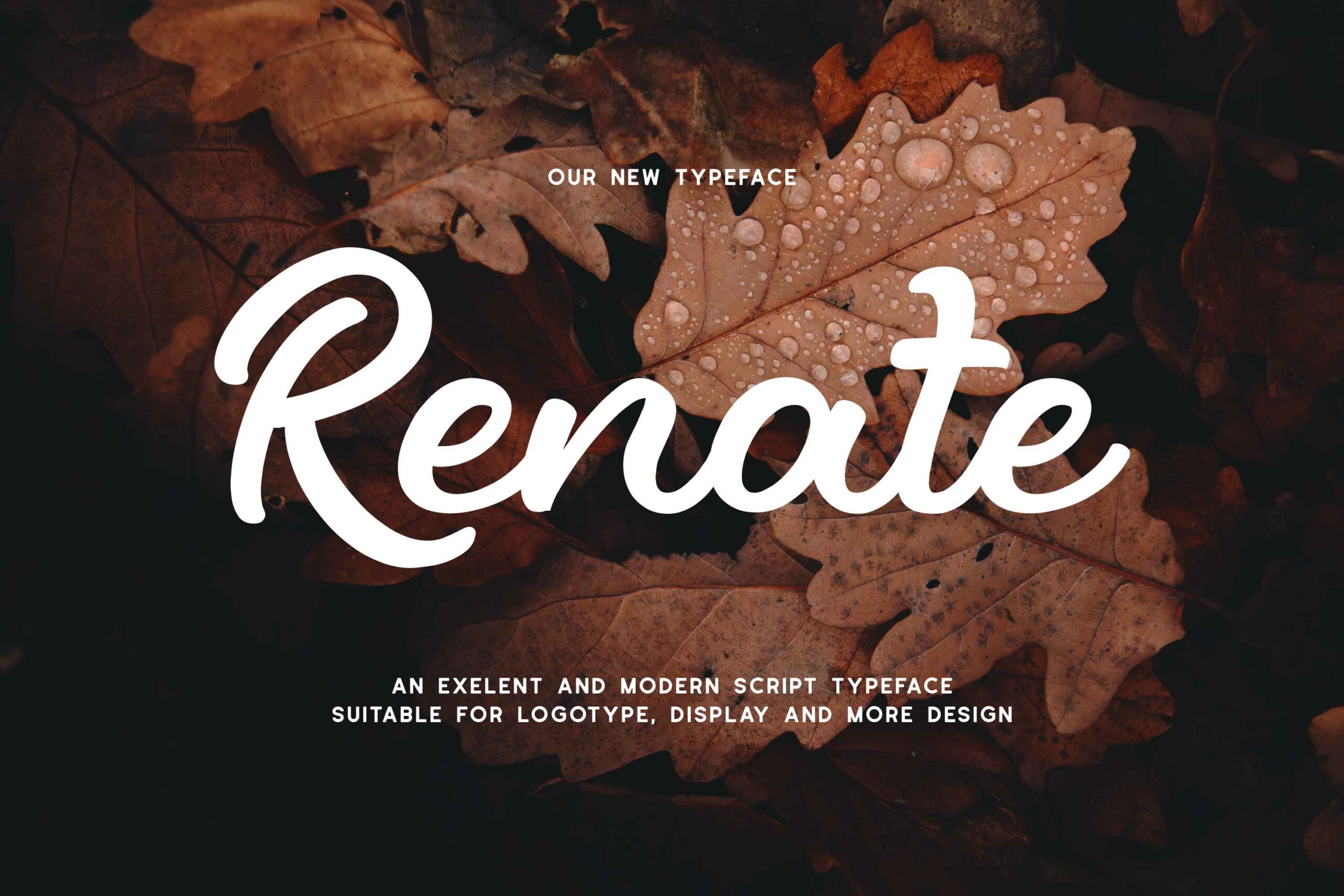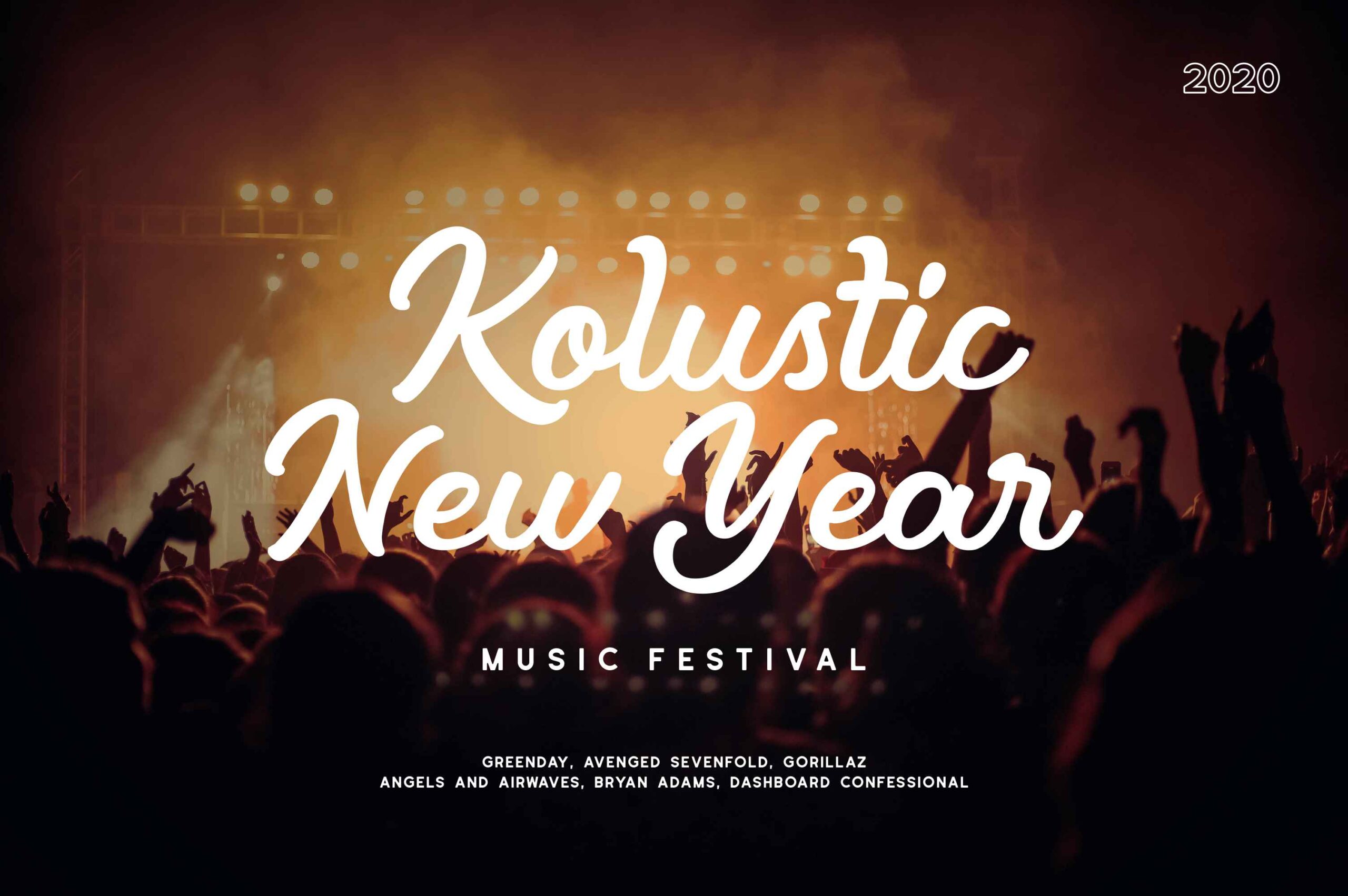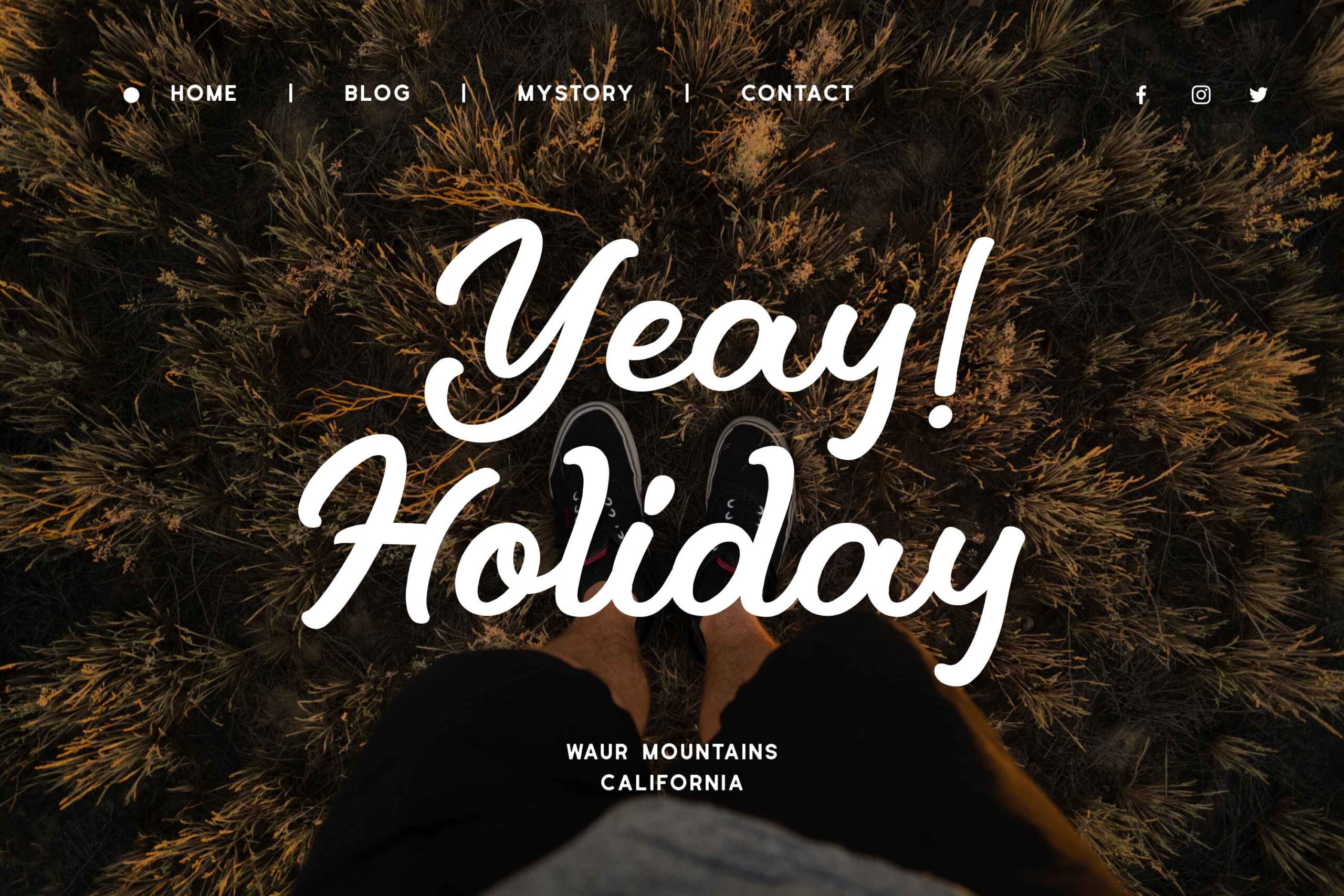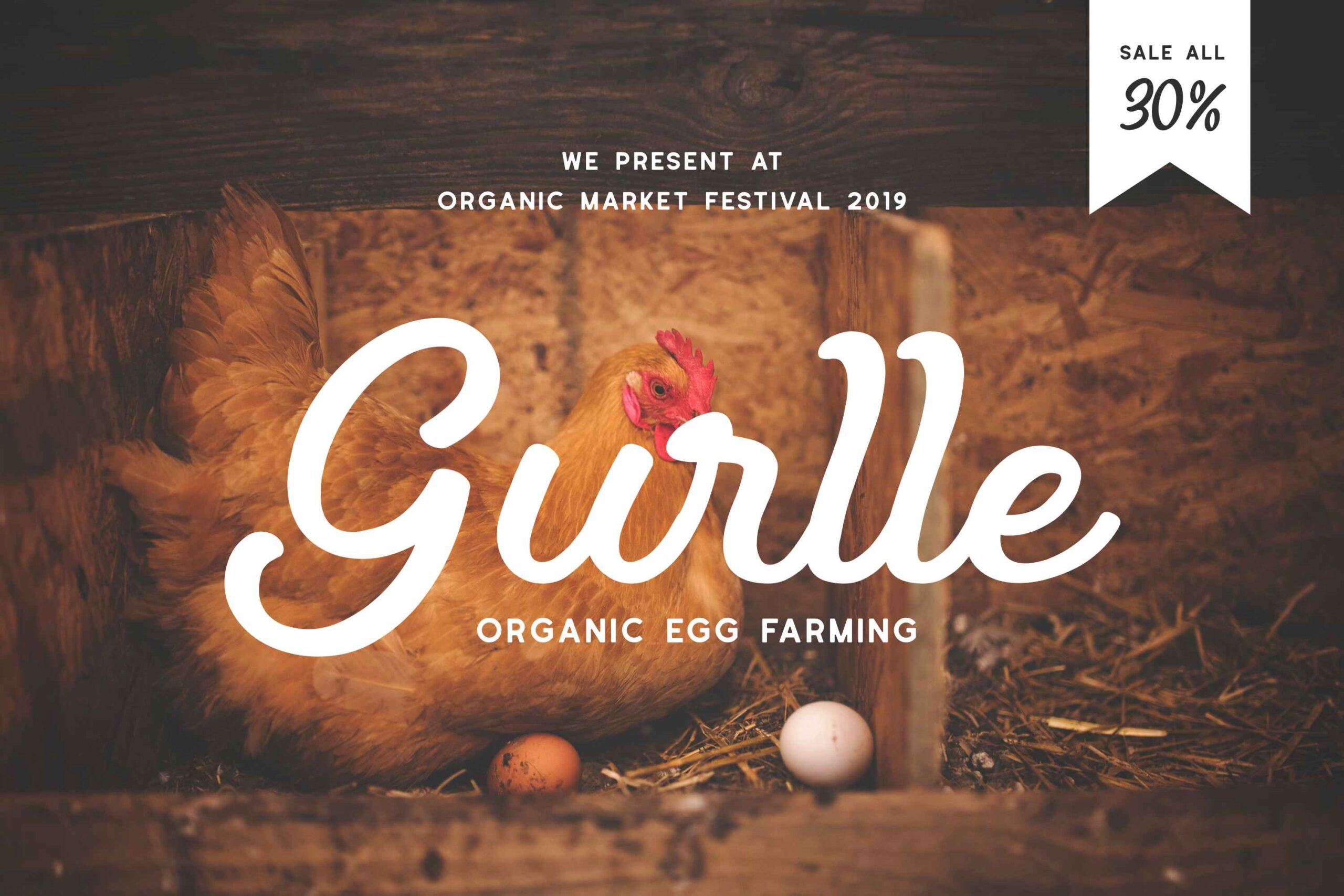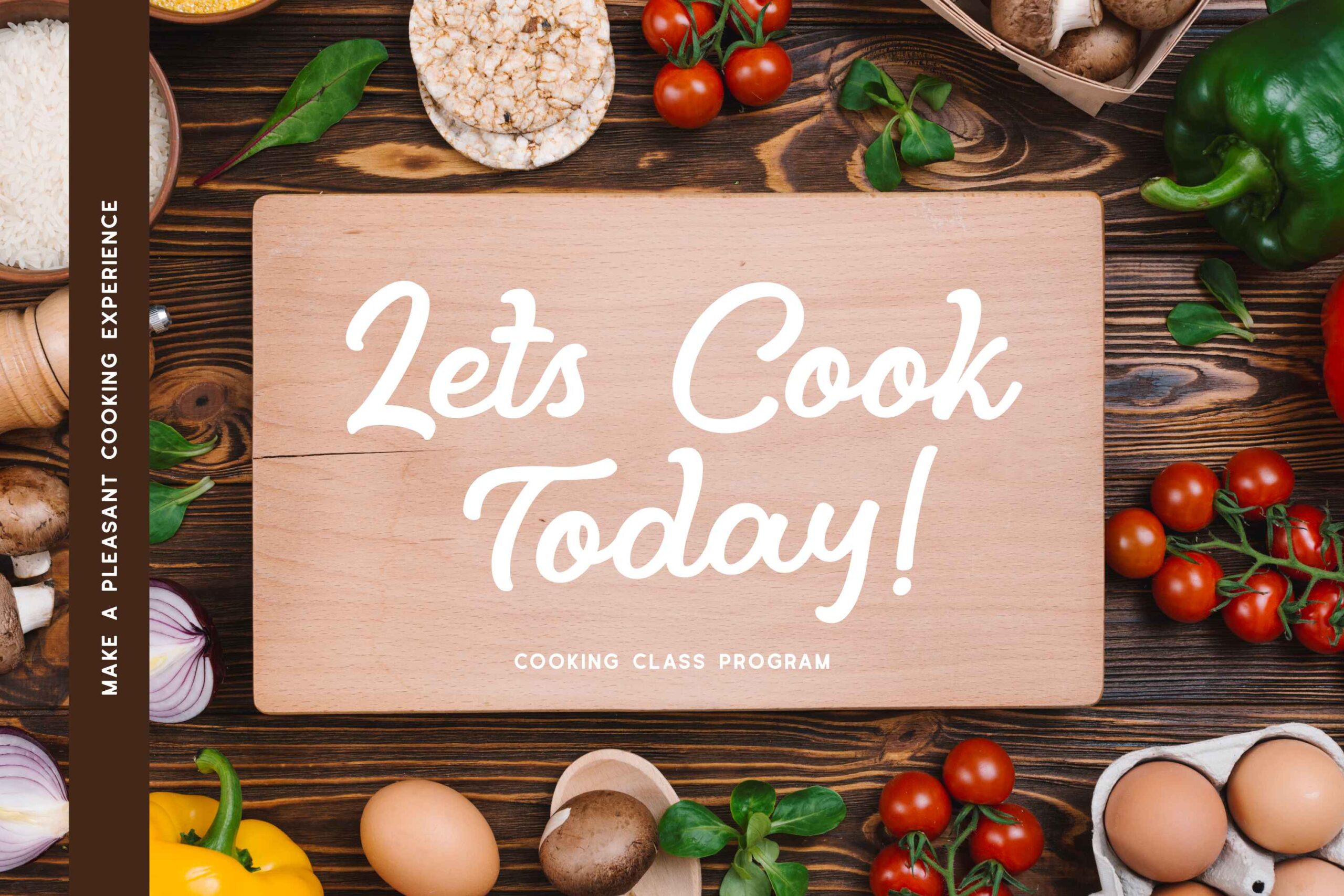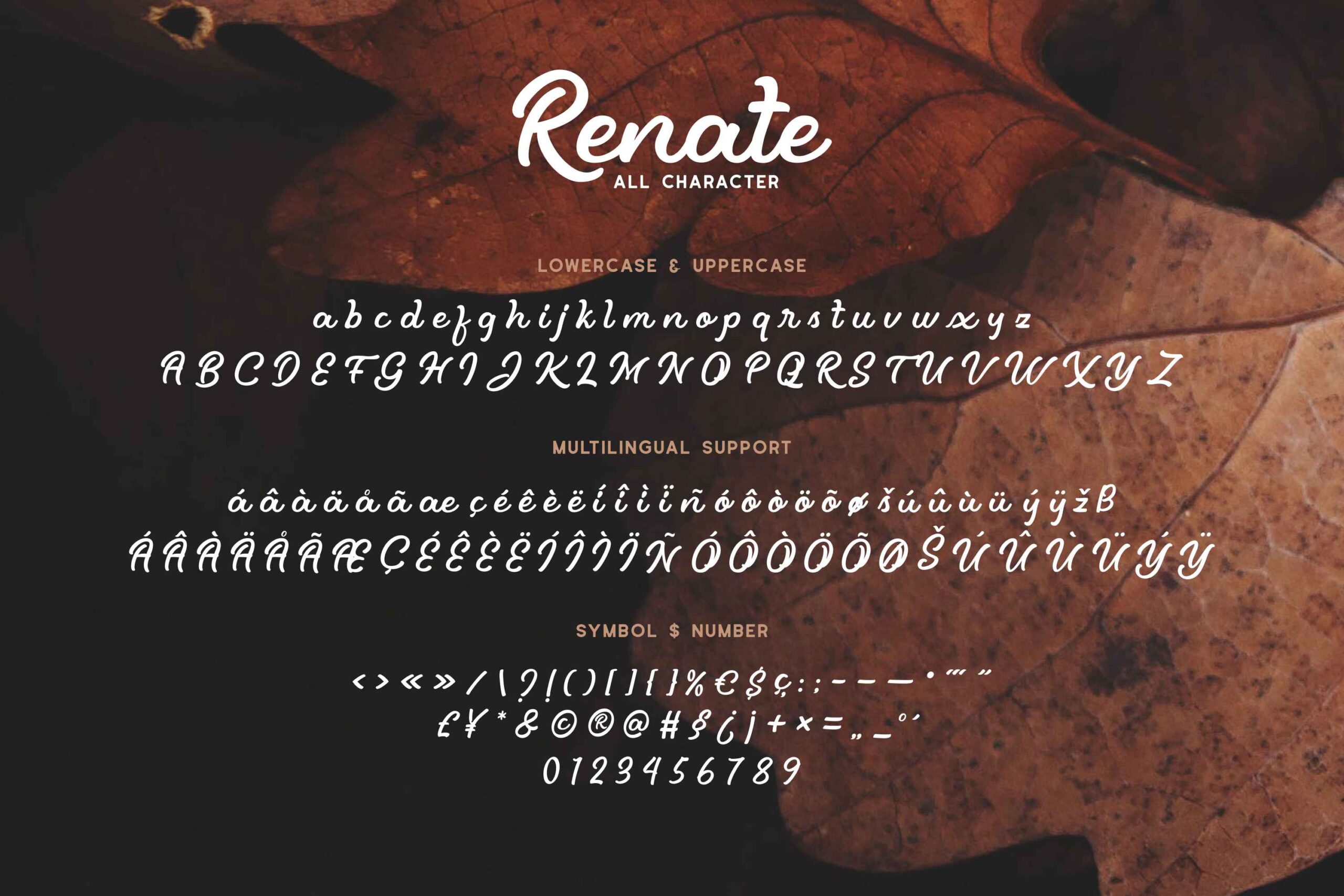
Renate is a modern script typeface that blends casual handwriting with a bold and confident look. Its smooth strokes, rounded edges, and natural flow create a friendly yet stylish aesthetic, making it perfect for logotypes, display designs, product packaging, and creative branding projects. With multilingual support and a complete set of symbols, Renate ensures versatility for global use.
Whether used for music festival posters, food and organic product branding, blogs, or holiday-themed designs, Renate brings warmth and energy to every project. Its balance between playful curves and professional readability makes it suitable for both digital and print media, giving your design an authentic and approachable personality.
Renate
Fype Co.